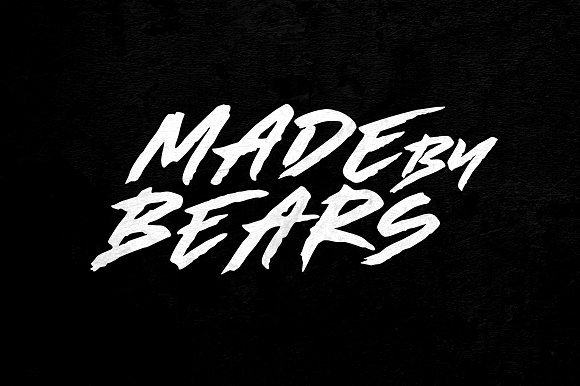
Made By Bears Brush Font
The MadebyBears is a lovely handlettering font designed by The Branded Quotes. Made By Bears is optimized to feel not just like a font but like true handletterings. Branding must come with an attitude. Whether promoting your band or making activist posters online, treat your art like it will gonna bite something. Our new creation Made by Bears will hunt every latent designs and equip it with all the spikes it needed!